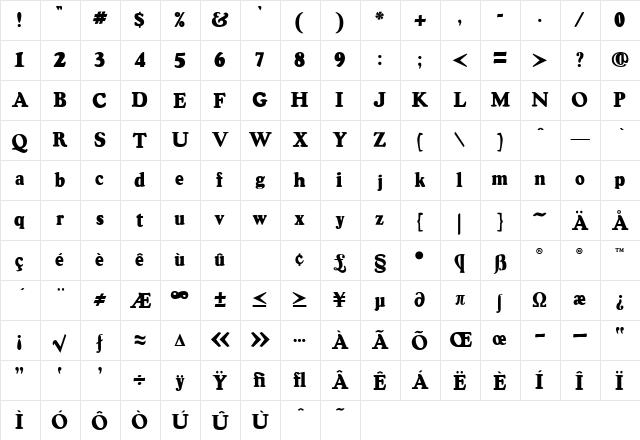
Oswald Grey Black
Design Context for Oswald Grey Typeface
Oswald Grey is a composed and adaptable typeface that performs quietly and consistently across a wide range of design contexts.